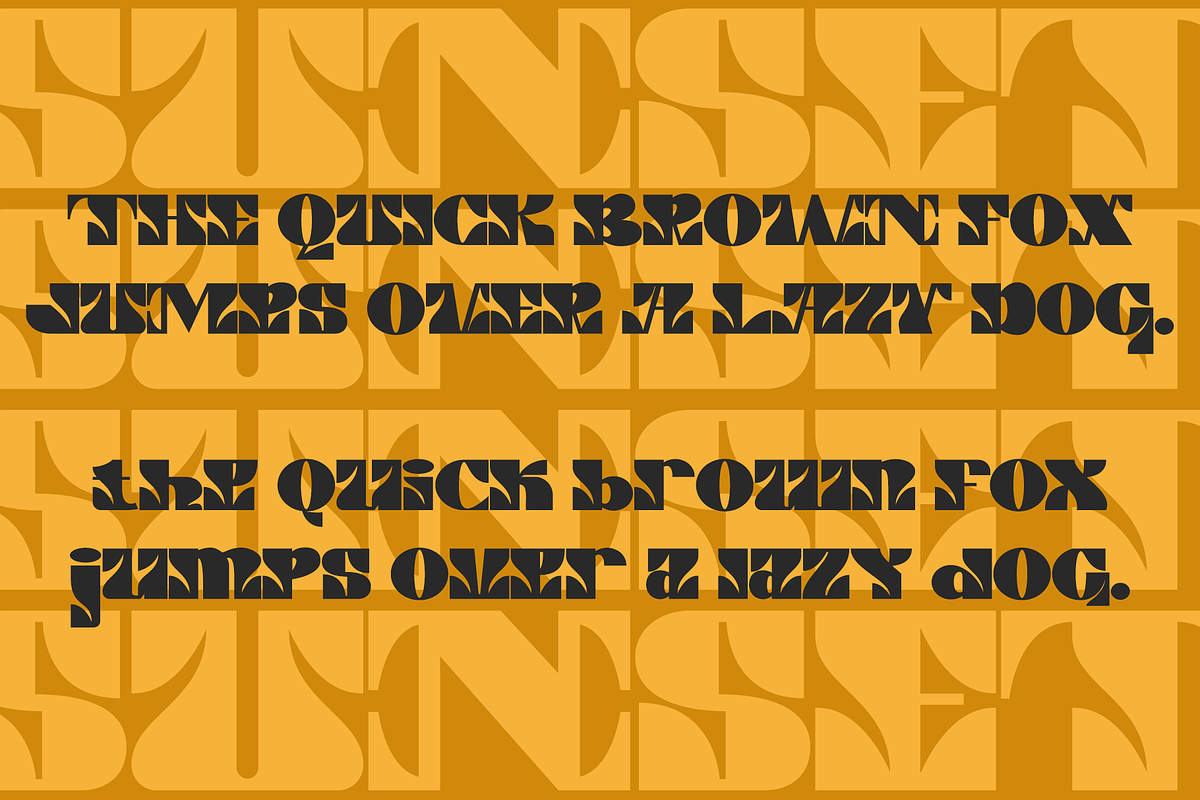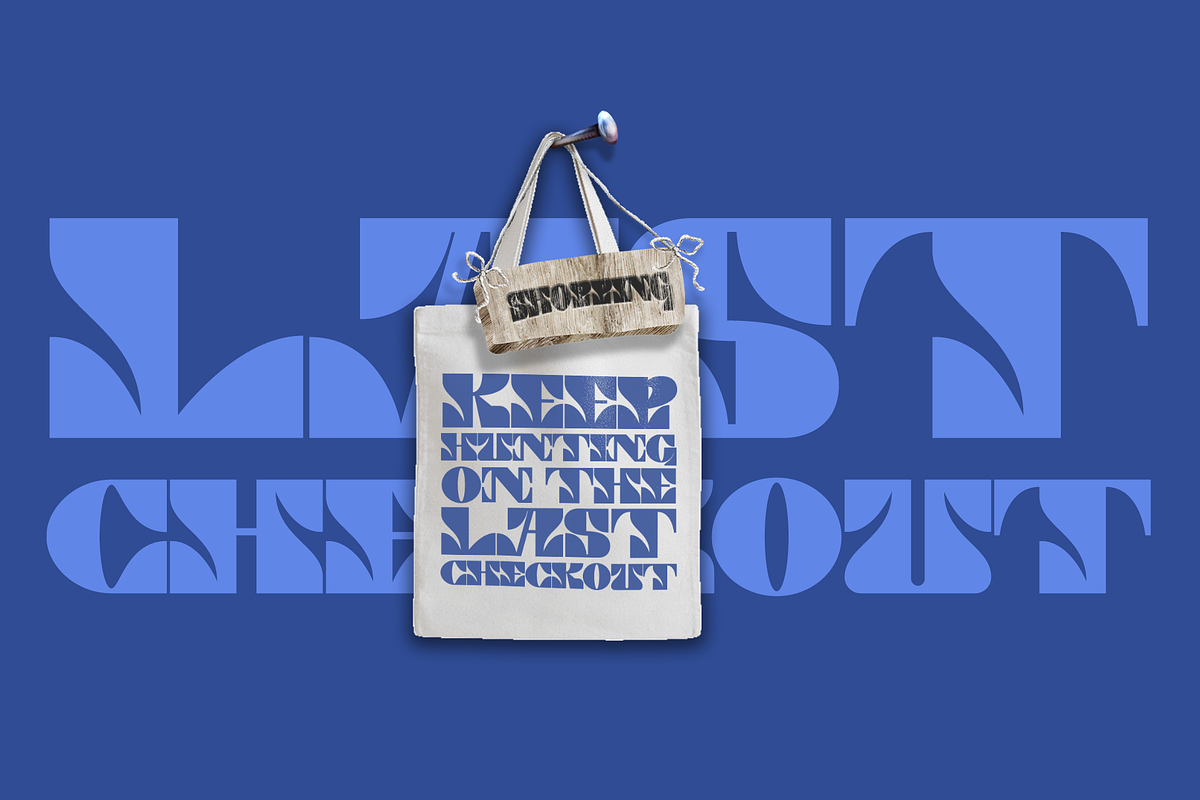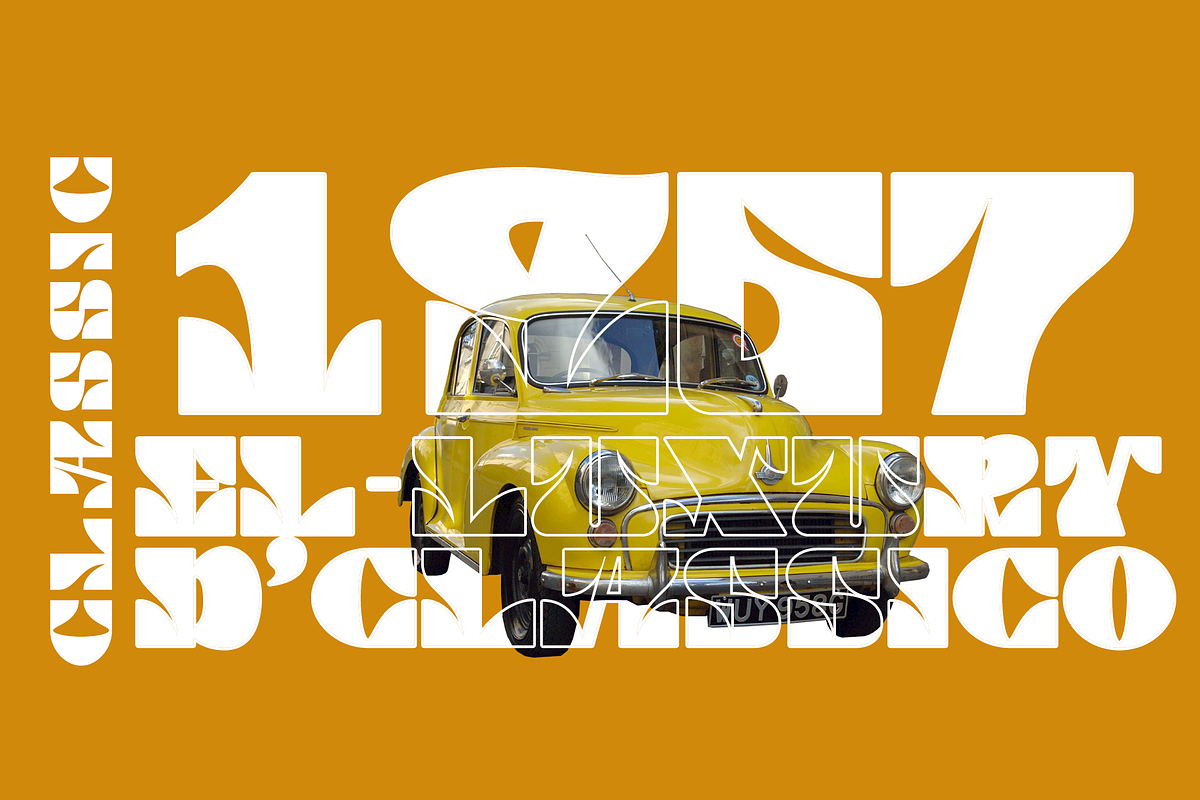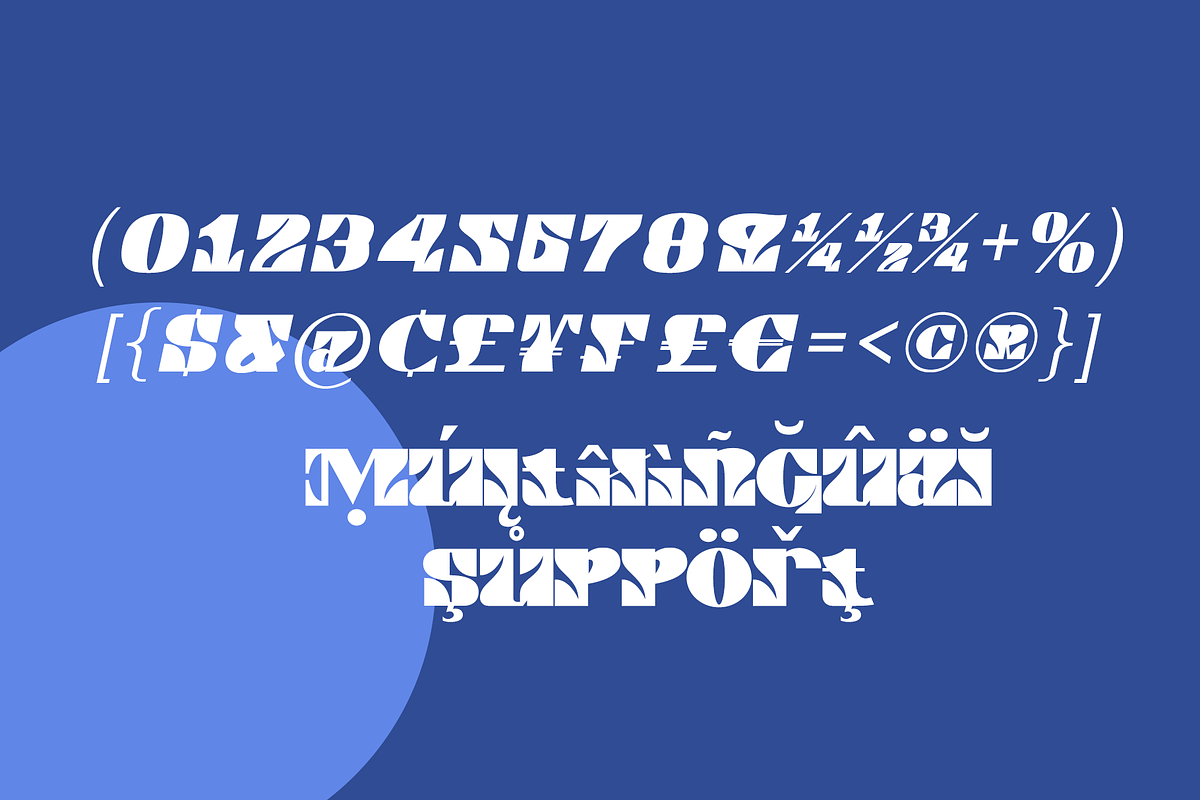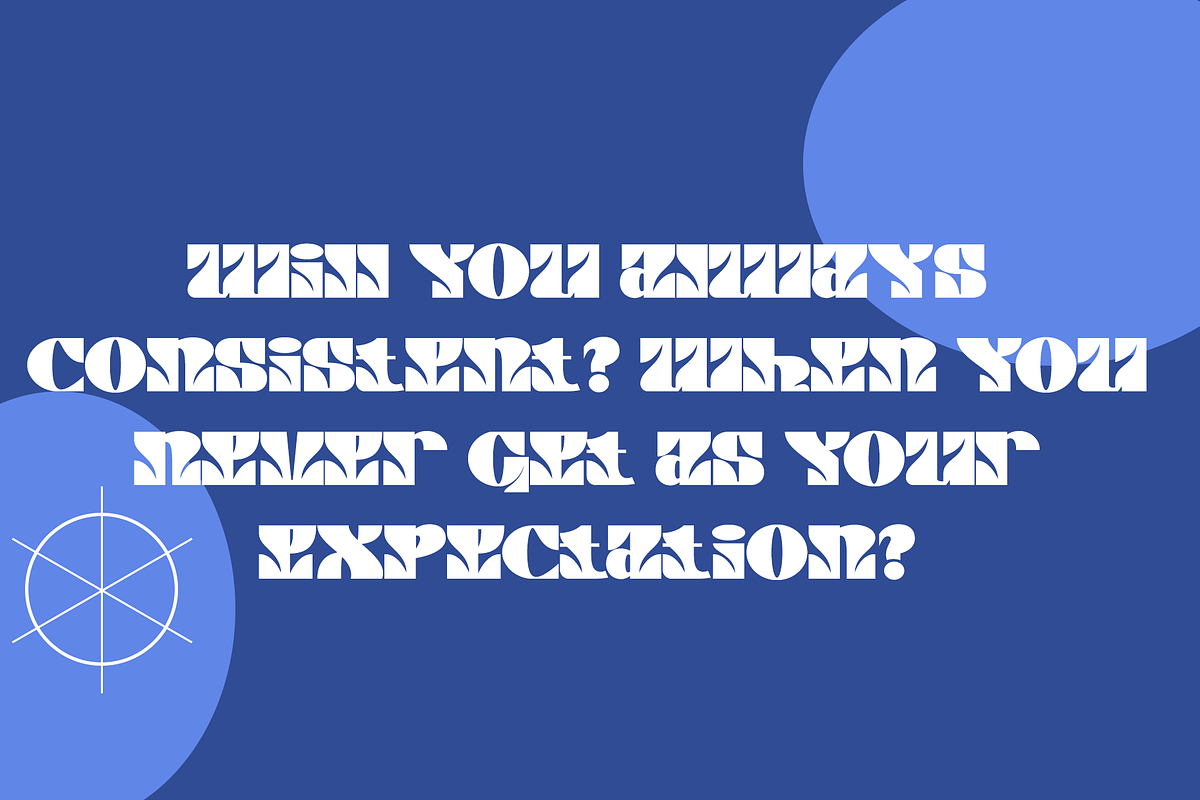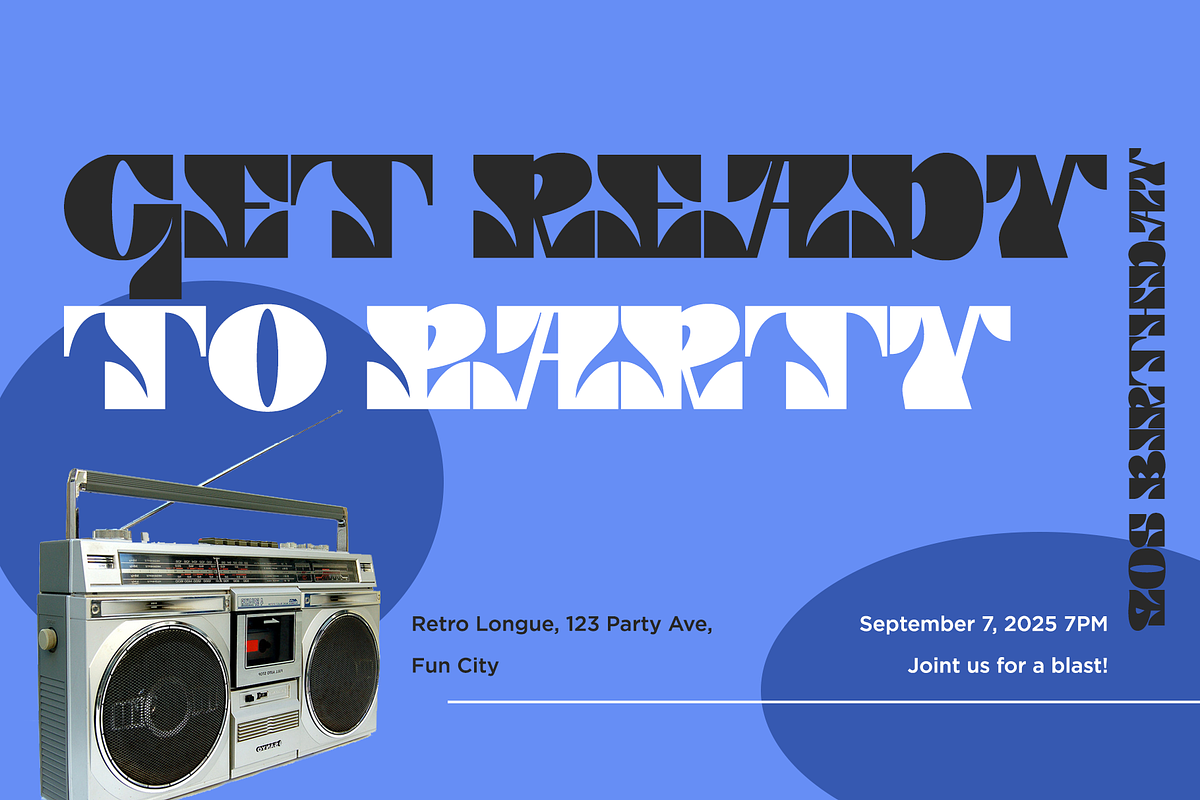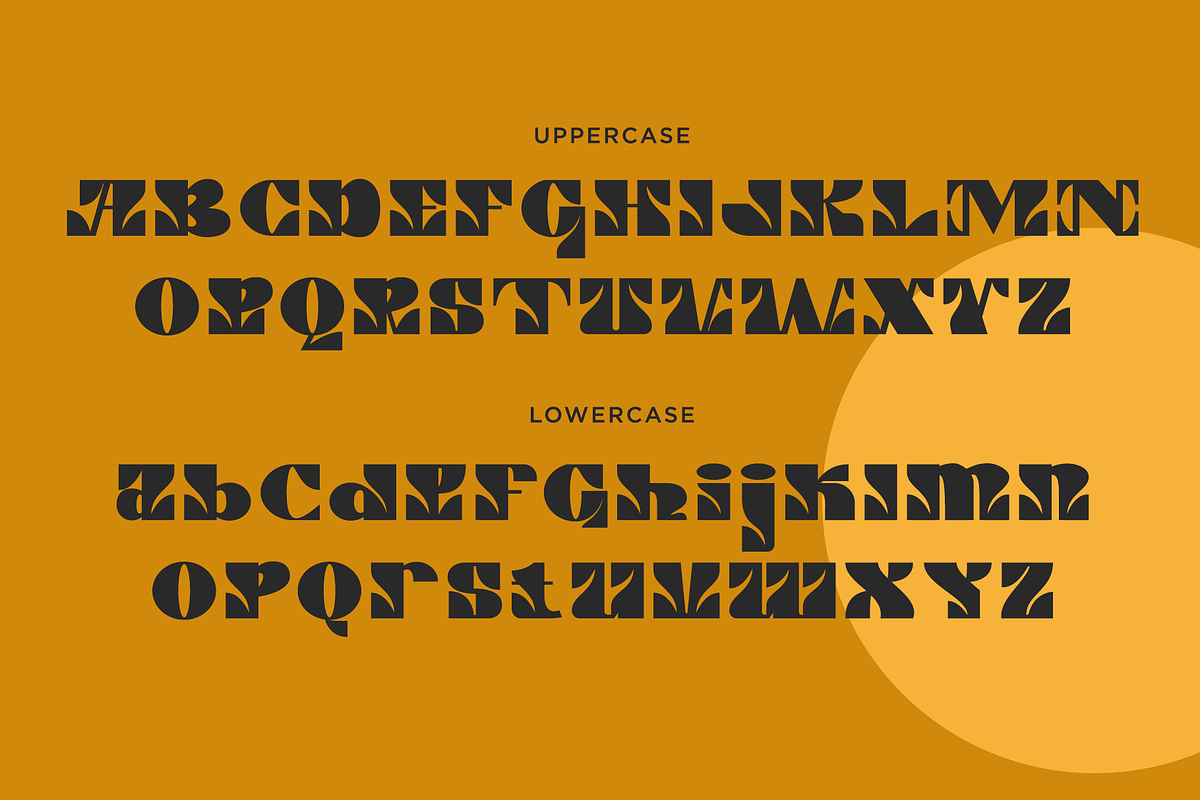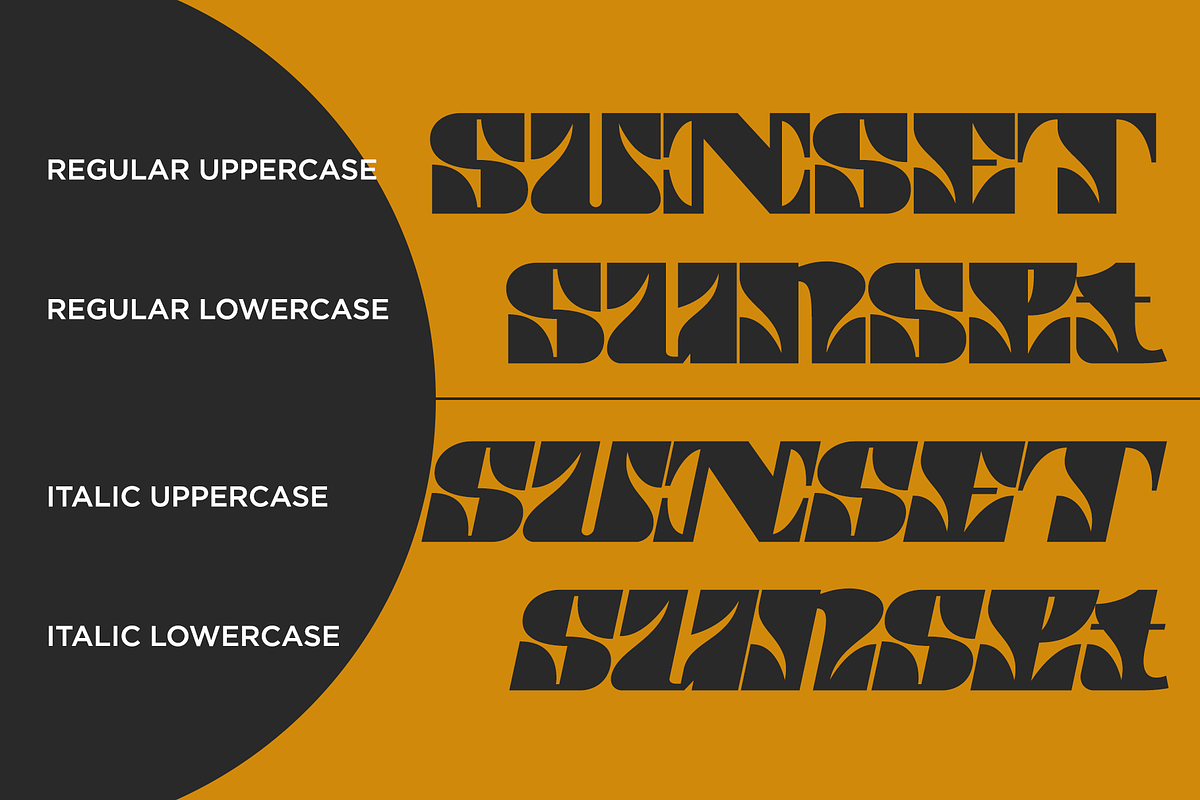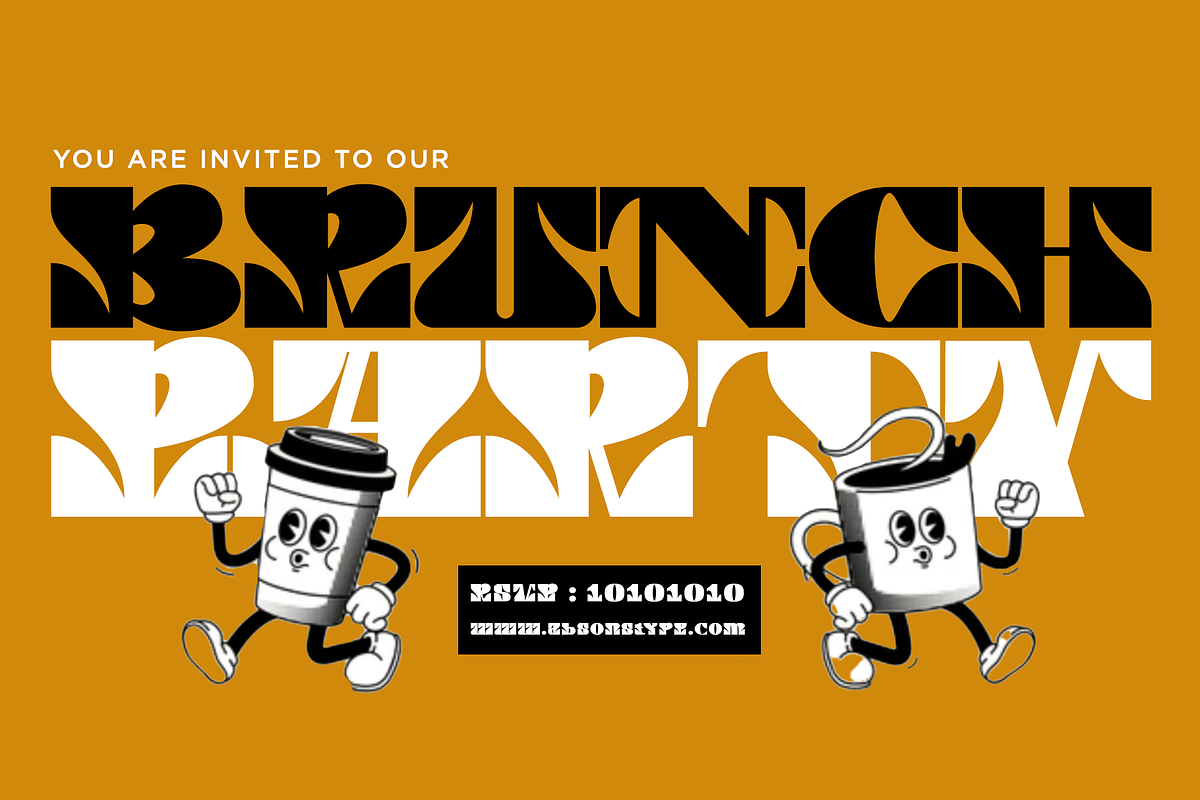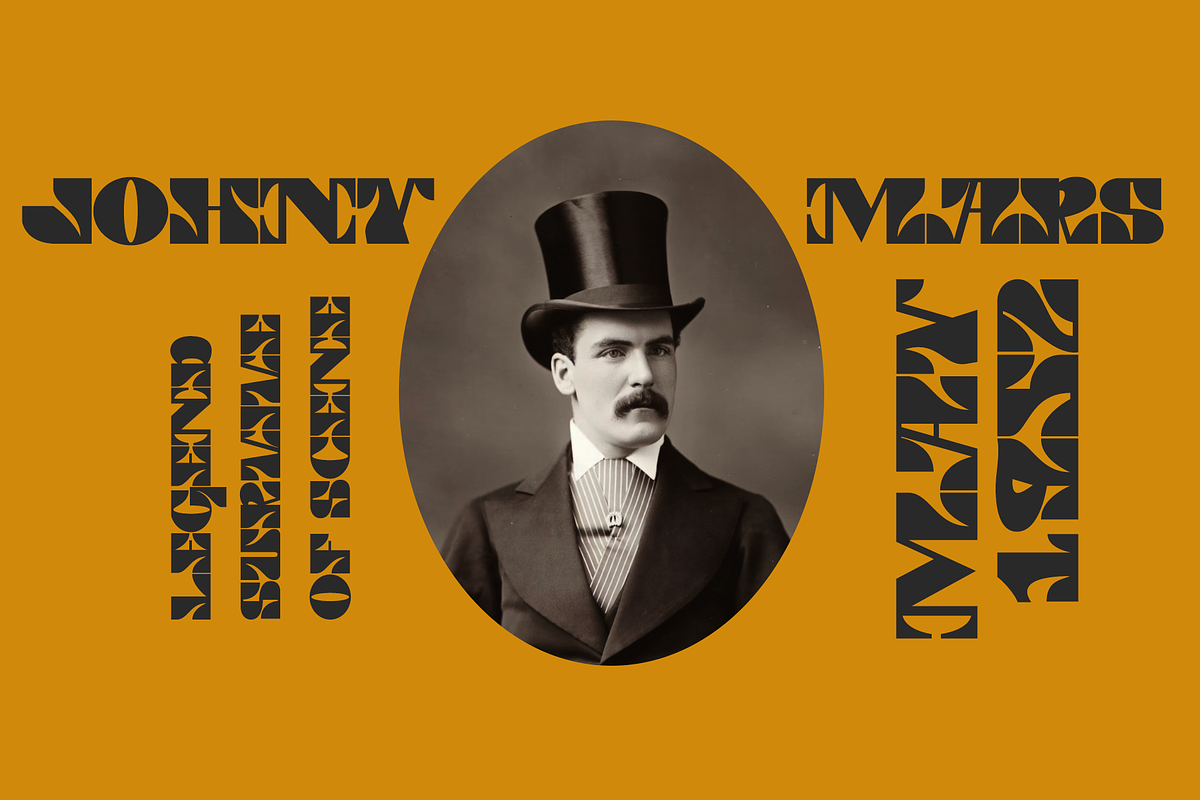
SUNSET
SUNSET is the High Contrast display typeface with combine uppercase and lowercase looks and feel nice balanced. Honestly it works perfectly for headlines, logos, posters, packaging, T-shirts and much more.
- Regular and Italic version
- Character set A-Z in Uppercase and Lowercase
- Accented Characters
- Multiple Languages Supported